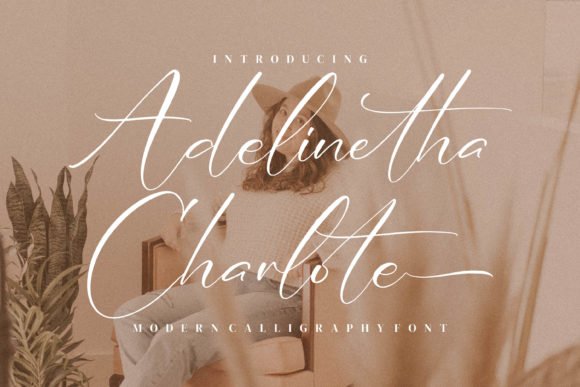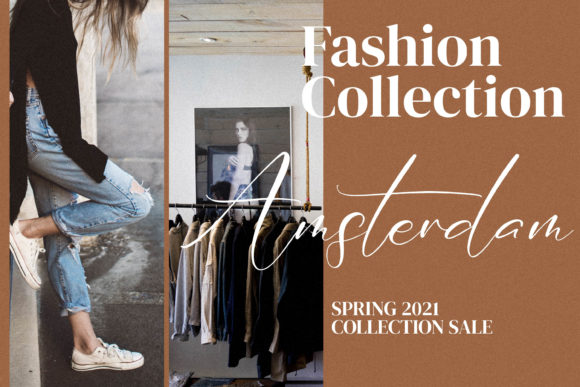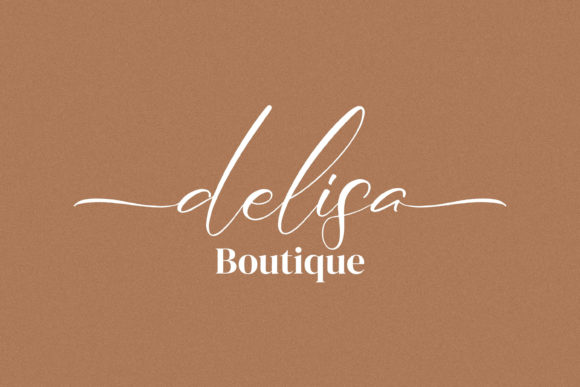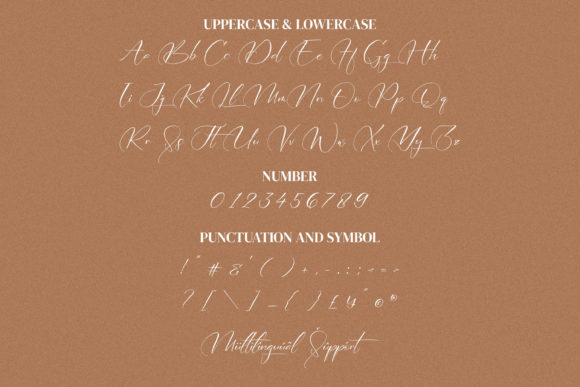
The Perfect Script for Your Next Masterpiece
Have you ever been brainstorming for hours, staring at a blank page, waiting for the perfect font to spark your creativity? That’s where Adelinetha Charlote Font comes in – a premium script font designed to elevate your projects to the next level. This elegant and sophisticated font is perfect for any luxury project that demands a touch of exclusivity.
Whether you’re working on a high-end logo, a bespoke product packaging design, or a beautiful invitation card, Adelinetha Charlote Font is sure to make your project stand out. Its PUA encoding allows for effortless access to all glyphs and swashes, giving you the freedom to get creative and push the boundaries of design. With Adelinetha Charlote Font, you’ll be able to infuse your work with a premium signature taste that’s sure to leave a lasting impression.
Adelinetha Charlote Font Key Features
- Font Family: Adelinetha Charlote, a script font designed for elegant and sophisticated designs.
- Character Count: Supports a wide range of characters, including Latin, Cyrillic, and Greek alphabets.
- Unique Characteristics: Features a beautiful, flowing script style with subtle flourishes and elegant connections between letters.
Adelinetha Charlote Font Review
Overall, I have mixed feelings about the Adelinetha Charlote Font. It’s a beautiful, elegant script font that can add a touch of sophistication to your designs. ✨
- Unique and elegant script style that’s perfect for luxury brands and high-end designs.
- Great for use in invitations, wedding designs, and other formal events.
- Supports a wide range of languages, making it a great option for multilingual designs.
Limited by:
- May not be the best choice for modern or tech-savvy brands, as it has a more traditional feel.
- Some characters may not be as well-formed as others, which can affect readability.
- Not suitable for body text, as it’s a script font and can be difficult to read in large quantities.
- ⚠️ Be aware of the font’s compatibility issues in older software or systems.
The Adelinetha Charlote Font is a beautiful and elegant script font that’s perfect for certain types of designs. While it may not be the best choice for all projects, it’s definitely worth considering for luxury brands and formal events. With some careful planning and use, it can add a touch of sophistication and elegance to your designs.
The Adelinetha Charlote Font is ideal for:
– Fashion and lifestyle brands
– Luxury and high-end designs
– Creating a sense of elegance and sophistication